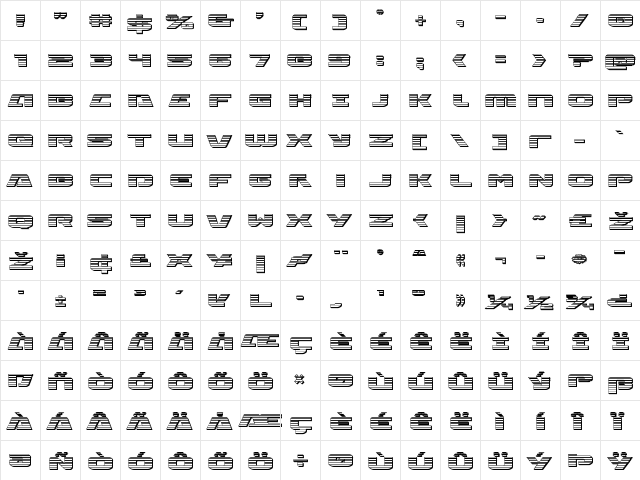
Iapetus Chrome Regular
Design Context for Iapetus Chrome Typeface
Iapetus Chrome is a composed and adaptable typeface that performs quietly and consistently across a wide range of design contexts.